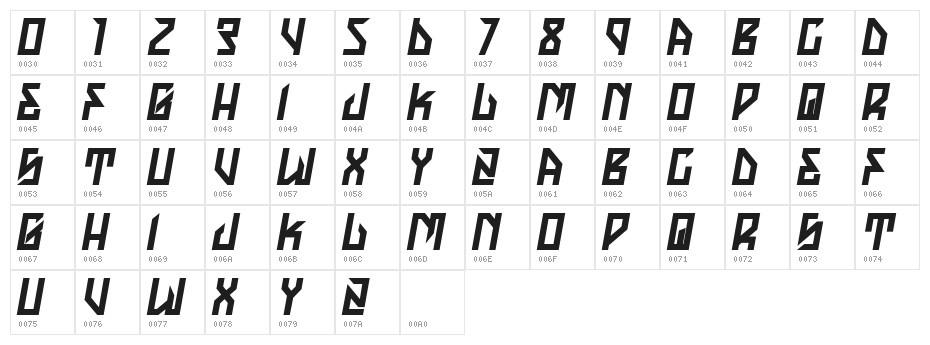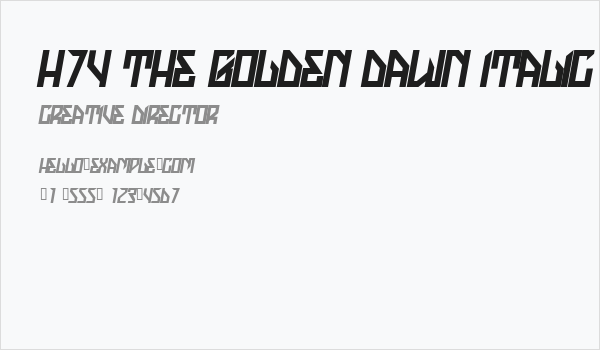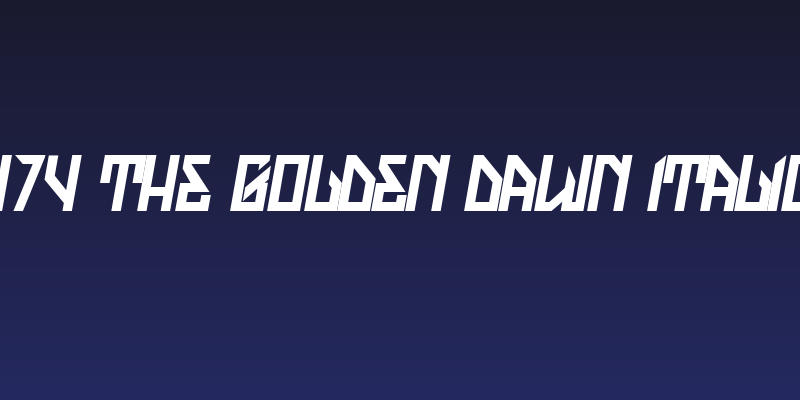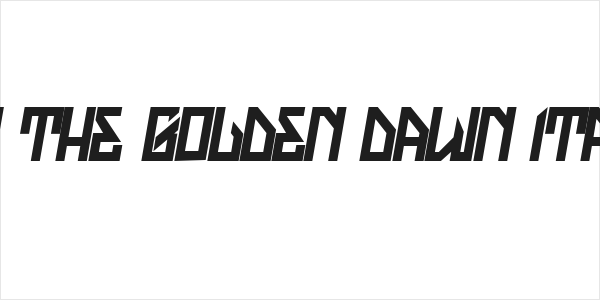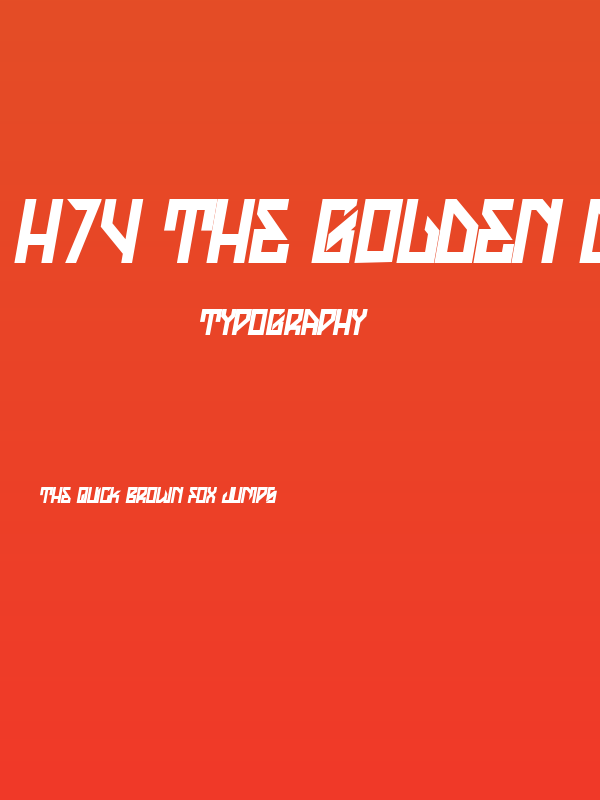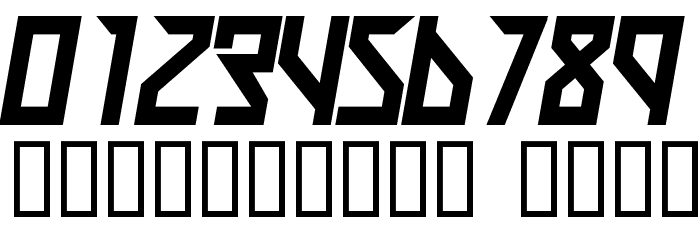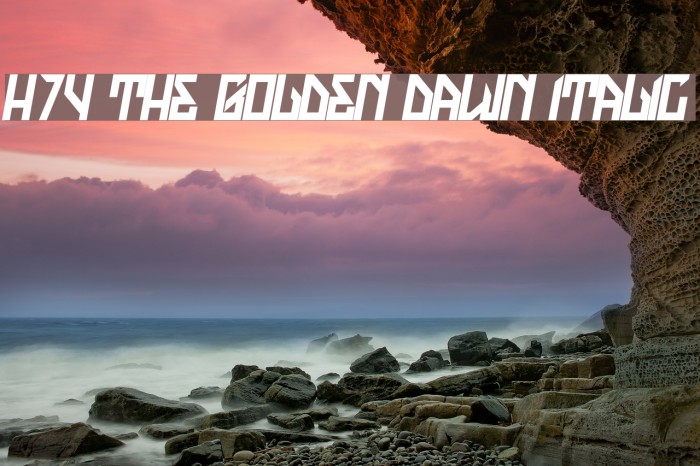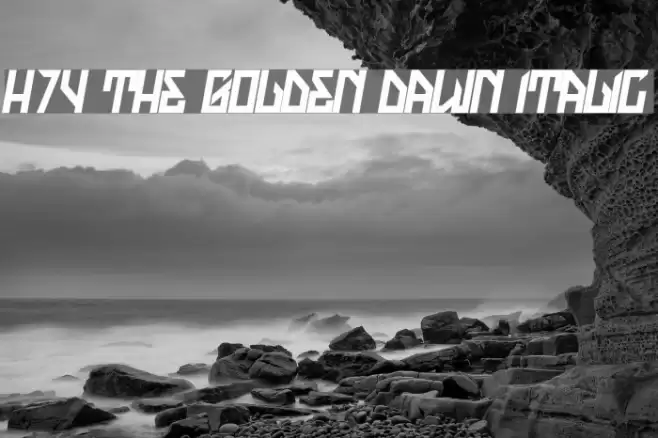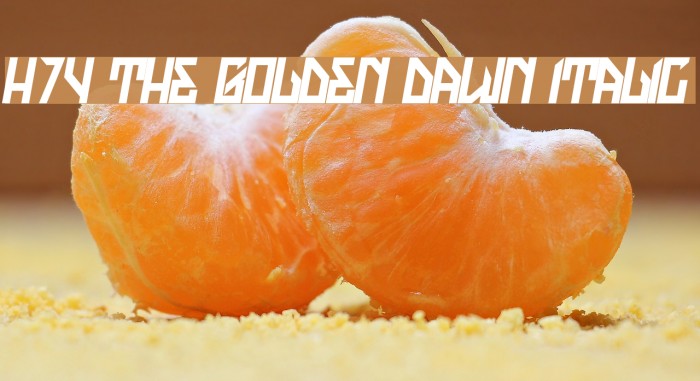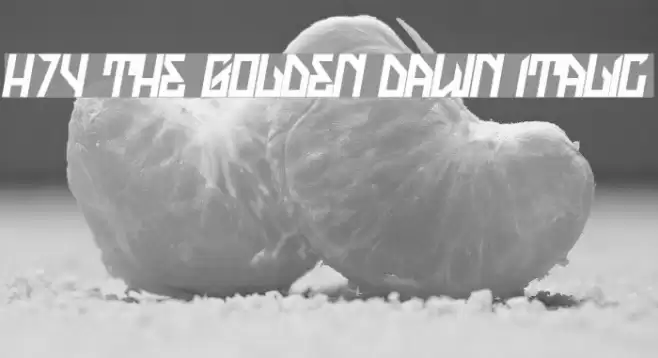
H74 The Golden Dawn Italic Font
H74 The Golden Dawn Italic Description
This font features a bold, angular design with a futuristic and edgy aesthetic. The characters are sharply defined with a consistent slant, giving them a dynamic and forward-moving appearance. The uppercase and lowercase letters maintain a uniform style, with each character exhibiting a unique geometric form. The numbers follow the same angular theme, ensuring consistency across all elements. Special characters are included, matching the overall design ethos. The font's strong visual impact makes it suitable for attention-grabbing applications.
| Overall Style | Futuristic, Edgy |
| Proposed Projects | Ideal for sci-fi themed projects, video game titles, posters, and branding that requires a modern and edgy look. |